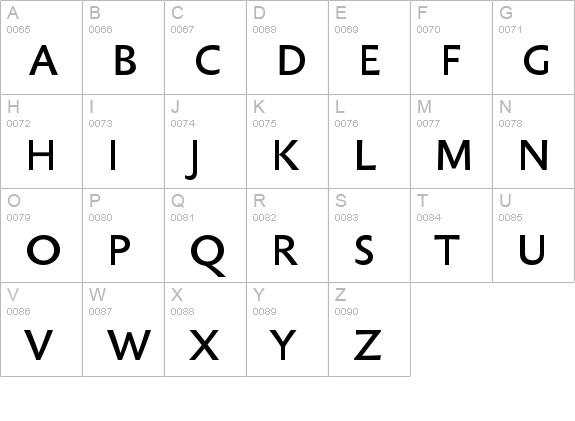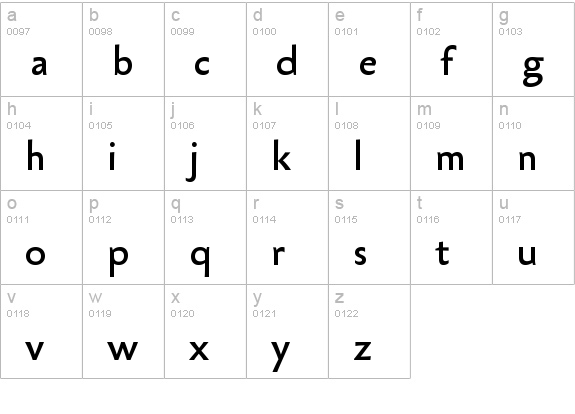
Sebastian Medium Pro is a balanced, medium-weight variant in the Sebastian typeface family \xE2\x80\x94 well suited to sub-headlines, navigation, and balanced editorial work.
Sebastian Medium Pro font is a beautifully crafted typeface that exudes elegance and sophistication. With its balanced letterforms and delicate details, this font is perfect for adding a touch of refinement to any design project. The medium weight of Sebastian Medium Pro strikes the perfect balance between legibility and impact, making it suitable for a wide range of applications. Whether it's for headlines, body text, or branding materials, this versatile font will make your content stand out with its timeless appeal. But what sets Sebastian Medium Pro apart is not just its exceptional design, but also the fact that it is available for free. That's right, you can easily download this font at FontsMarket.com, where it is freely accessible to designers, artists, and typography enthusiasts alike. By offering Sebastian Medium Pro as a free resource, FontsMarket.com enables creative individuals to access high-quality typography without any limitations. This font is not only a visual delight but also a valuable asset that empowers designers to bring their visions to life. So, whether you're working on a personal project or a professional endeavor, Sebastian Medium Pro font is here to elevate your designs with its timeless beauty and accessibility. Download it today from FontsMarket.com and unlock endless possibilities for your creative journey.